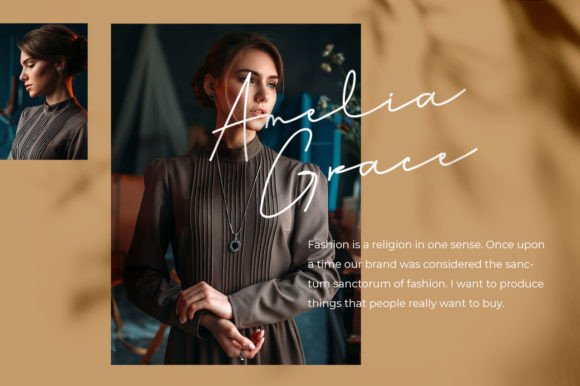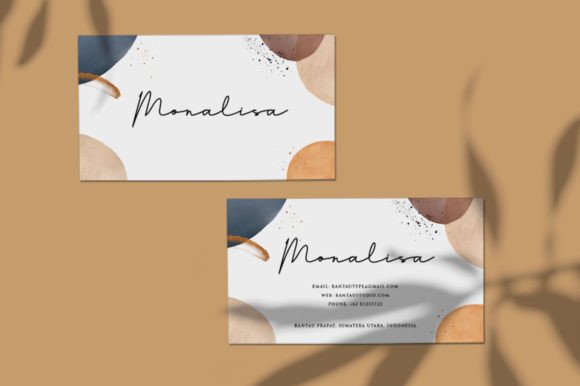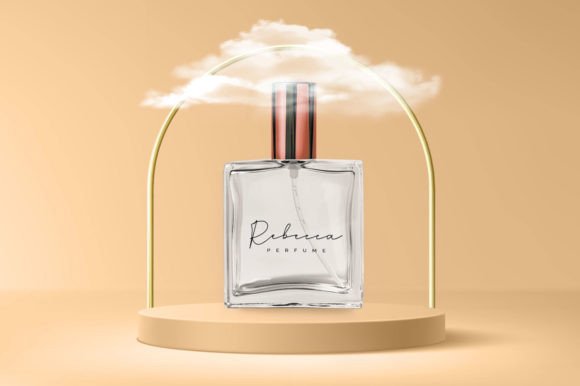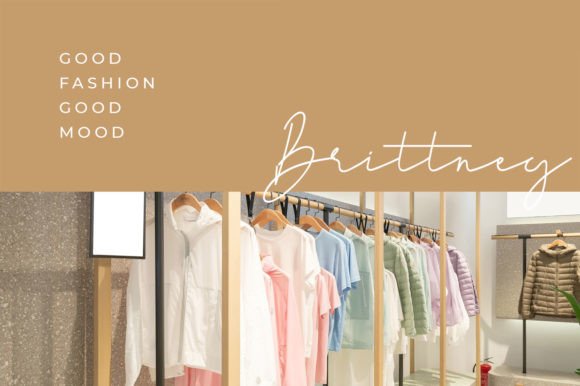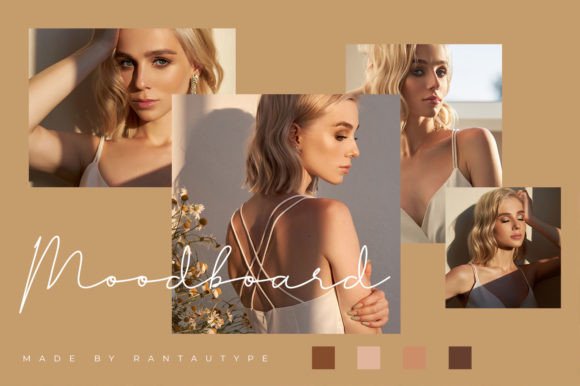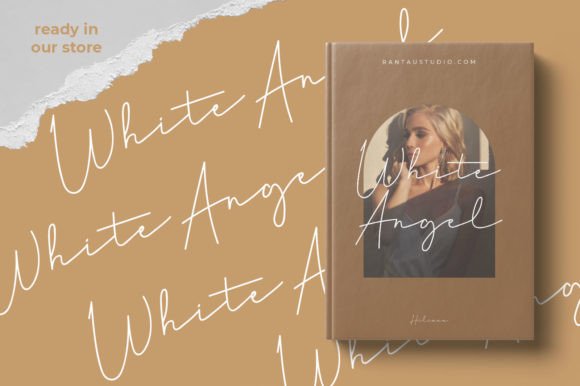
Introduction to Hiliana Font
Do you remember that moment when you finally nailed the perfect design for your brand or project? The rush of excitement and satisfaction that comes with creating something truly unique and beautiful? For designers, those moments are what make all the hard work worth it. And, what if I told you that there’s a secret design resource that can elevate your creative projects to a whole new level?
Enter the Hiliana Font, a classy signature font that’s perfect for adding that extra touch of sophistication to your designs. With its flowing curves and elegant style, Hiliana Font is a game-changer for designers looking to create high-quality designs with a personal touch.
Key Features of Hiliana Font
- High-quality design resource for creative projects, ideal for logo designs, branding materials, and more.
- Includes a wide range of glyphs and characters, making it suitable for various languages and applications.
- Designed with a modern and sleek aesthetic, perfect for contemporary design projects.
- Great for designers, artists, and creatives looking for a versatile and stylish font for their next project.
Honest Review: Hiliana Font
I recently stumbled upon the Hiliana Font, a beautiful addition to my design resource collection. As a designer, I’m always on the lookout for high-quality fonts to elevate my creative projects. The Hiliana Font does just that.
- ✨ Elegant and sophisticated design aesthetic
- ✨ Smooth and clear letterforms
- ✨ Transparent background, making it easy to pair with other elements
- ⚠️ Limited font sizes available (only a few weights)
- ⚠️ Not suitable for bold or dramatic text, as it can become too subtle
Overall, I’m impressed with the Hiliana Font. It’s a great addition to my design resource collection, and I can see it being used in a variety of creative projects. The free download is a major bonus, making it accessible to designers of all levels.
How to Use Hiliana Font
The Hiliana Font is a high-quality, versatile design resource ideal for various creative projects. It features a transparent background, making it easily customizable for different applications.
Getting the Most Out of Hiliana Font
For optimal results, experiment with different font sizes, colors, and combinations with other design elements. This font is particularly well-suited for creative projects requiring a clean and modern aesthetic.
Hiliana Font is commonly used for:
- Graphic design projects
- Print materials, such as business cards and brochures